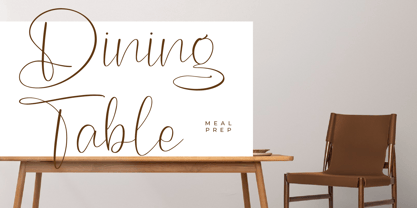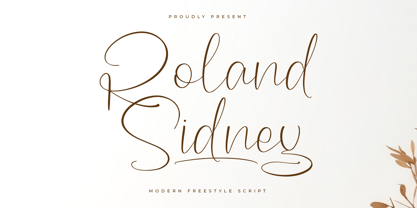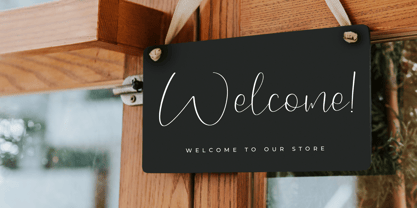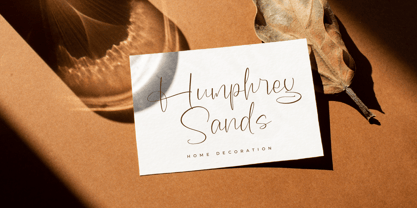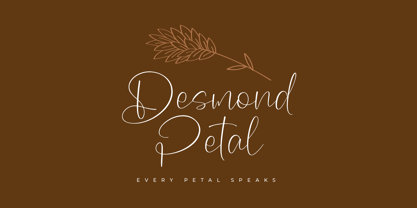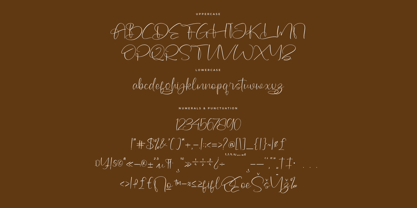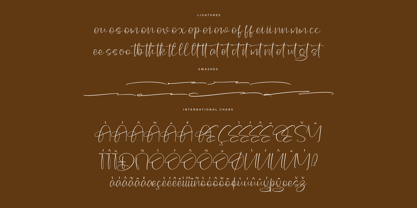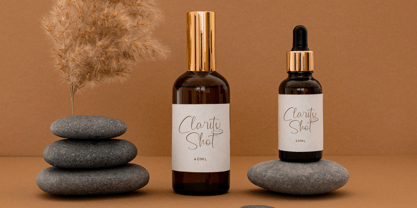
Roland Sidney
Die Schriftfamilie Roland Sidney wurde von Heru Utama Putra entworfen und von Letterena Studios veröffentlicht. Roland Sidney enthält 2 Stile und Familienpaketoptionen.
Roland Sidney – Modern Freestyle Script , from Letterena, is a Luxury Script font, suitable for any projects such as: logos, branding projects, homeware designs, product packaging, mugs, quotes, posters, shopping bags, t-shirts, book covers, name card, invitation cards, greeting cards, label, photography, watermark, special events, and all your other luxury and beautiful projects that need a Luxury Script taste.